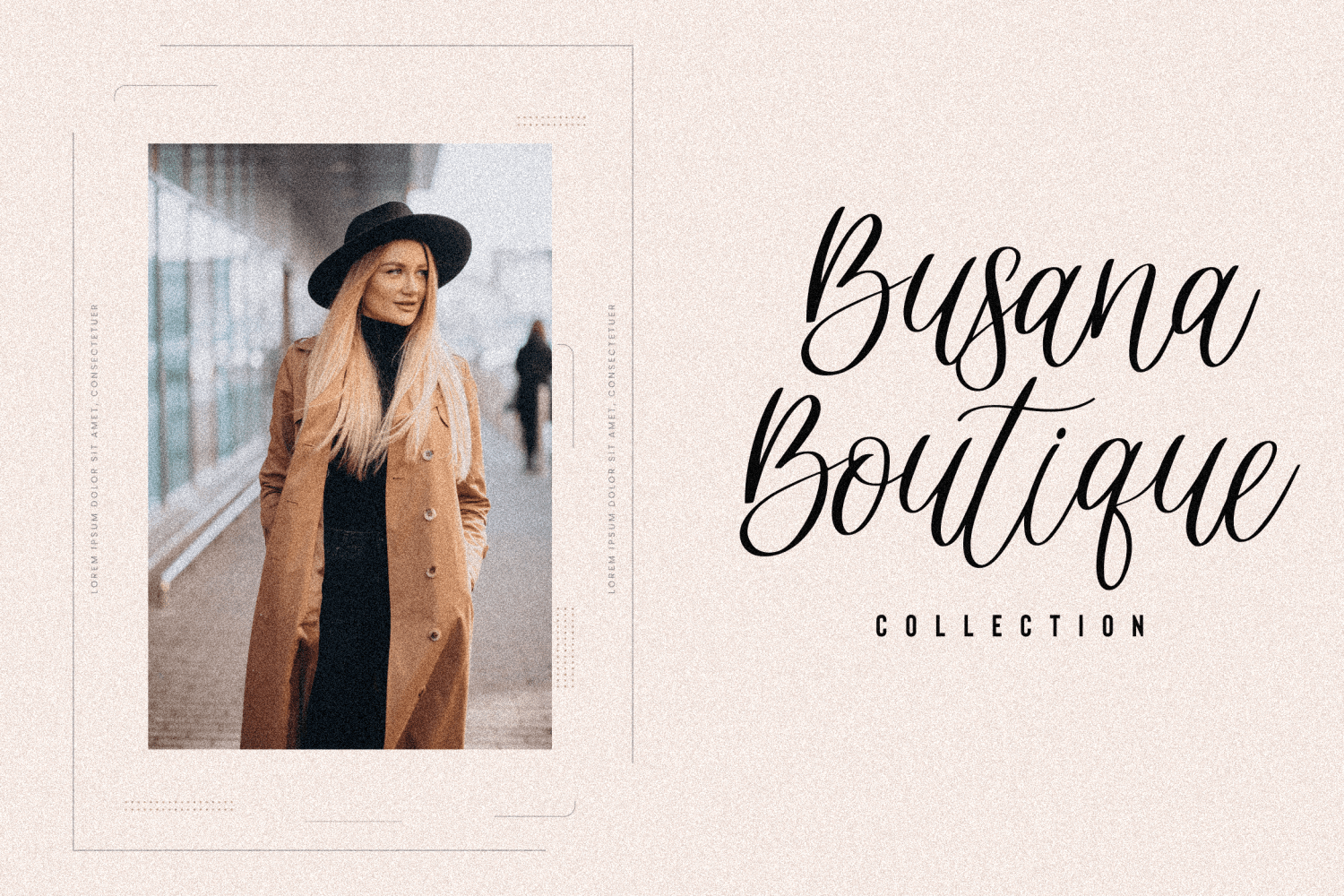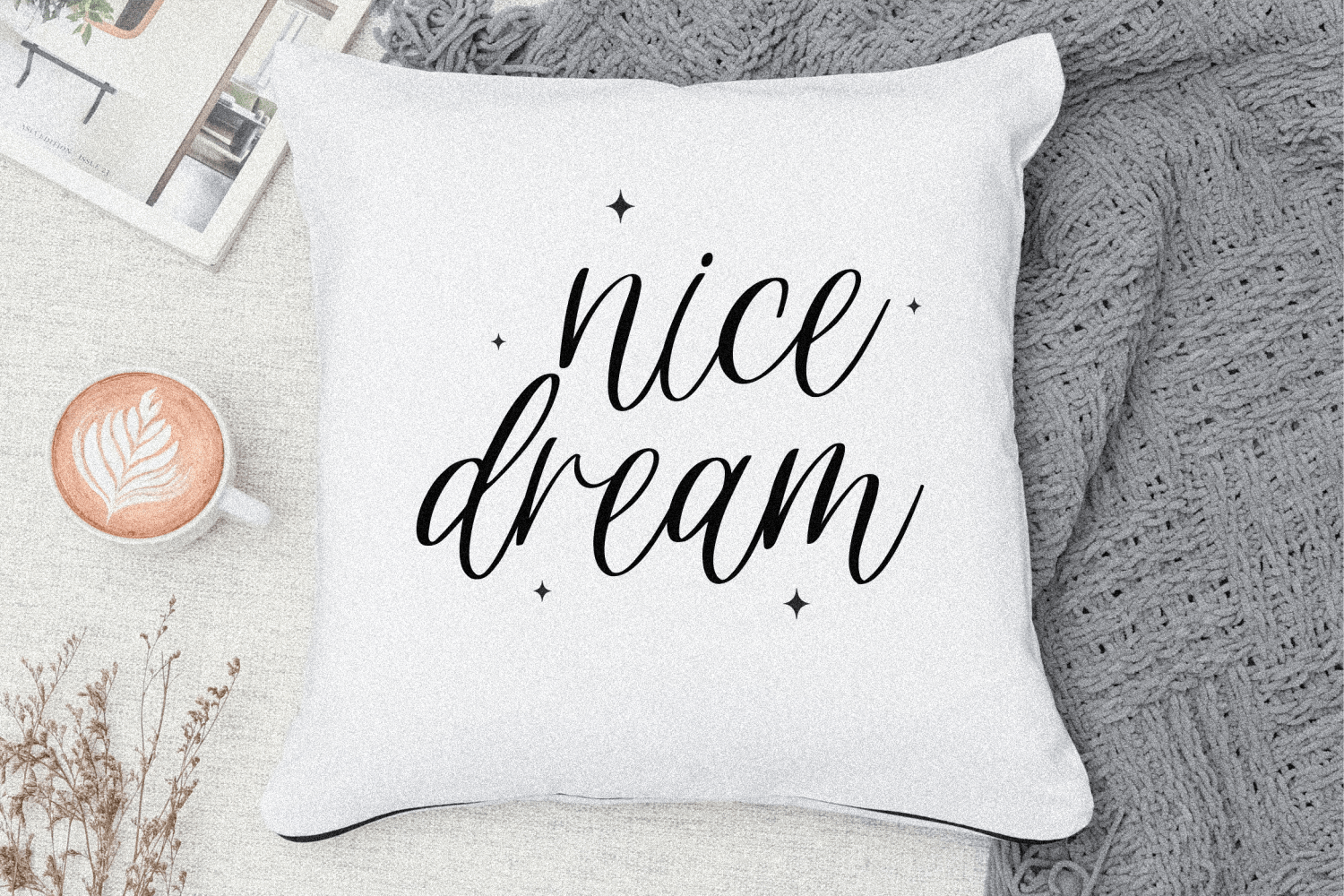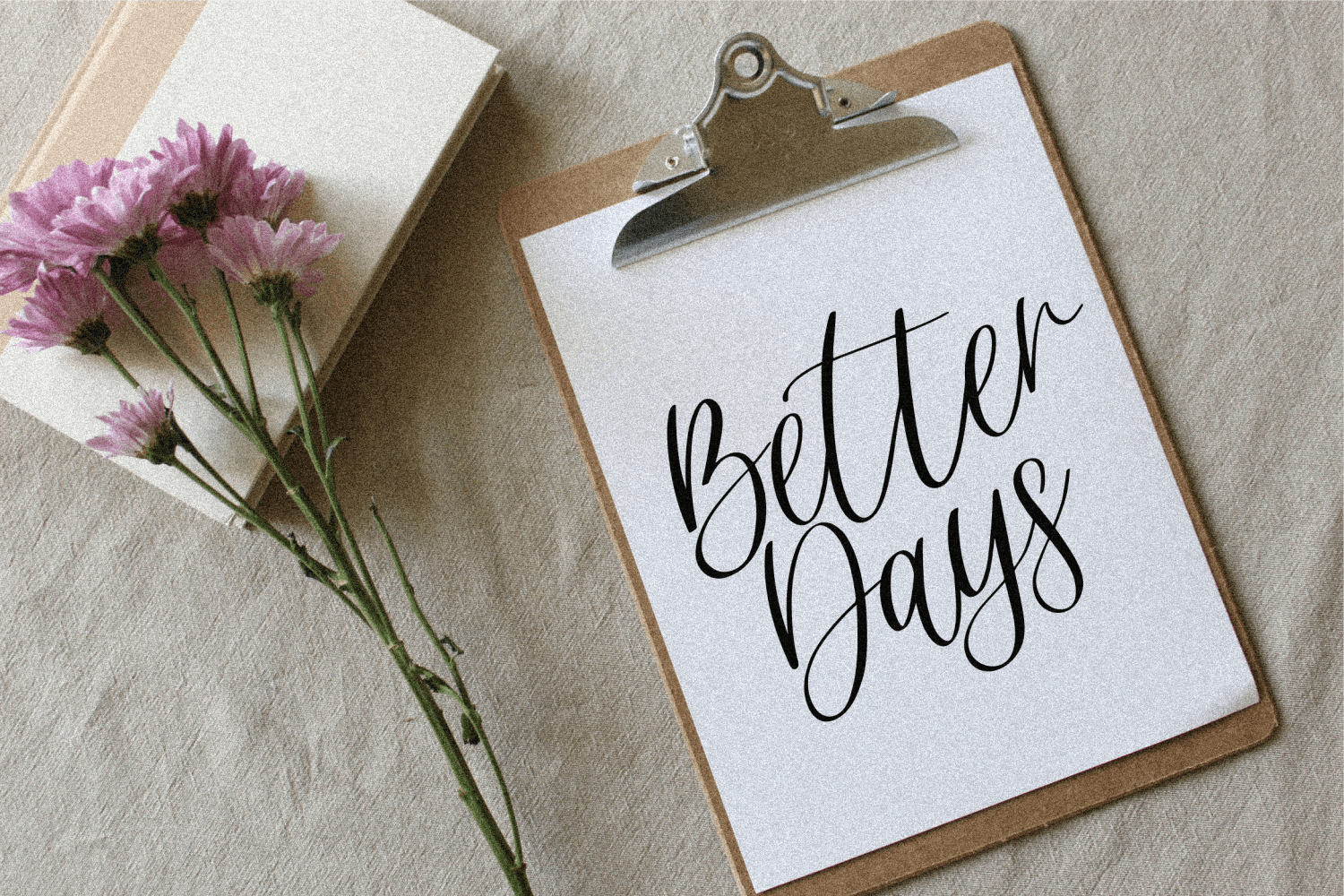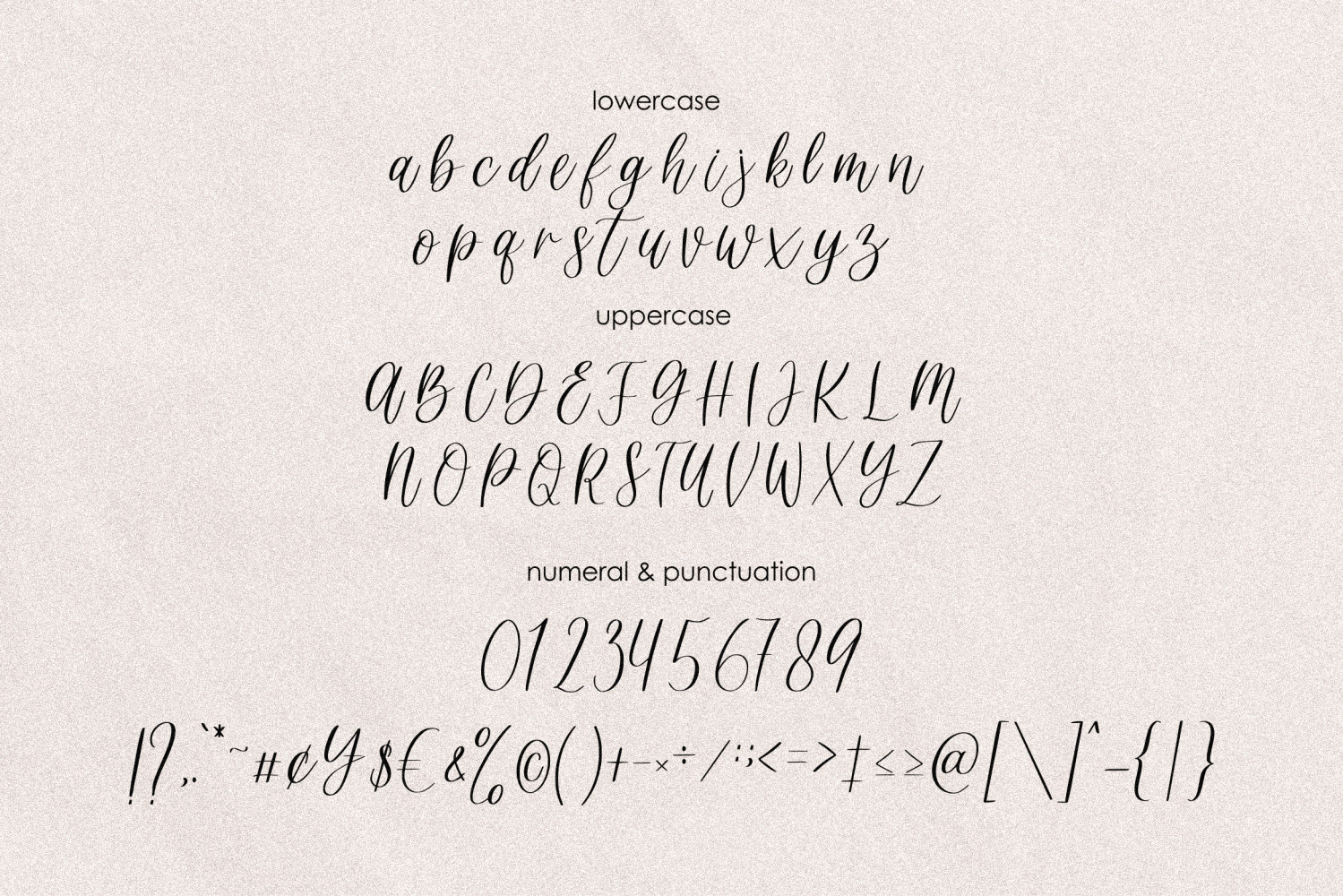
Blystnutter Font
Blystnutter Script Font
It’s a beautiful and modern calligraphy typeface. This display font features gorgeous swashes and alternates that will take your crafting projects to the next level!